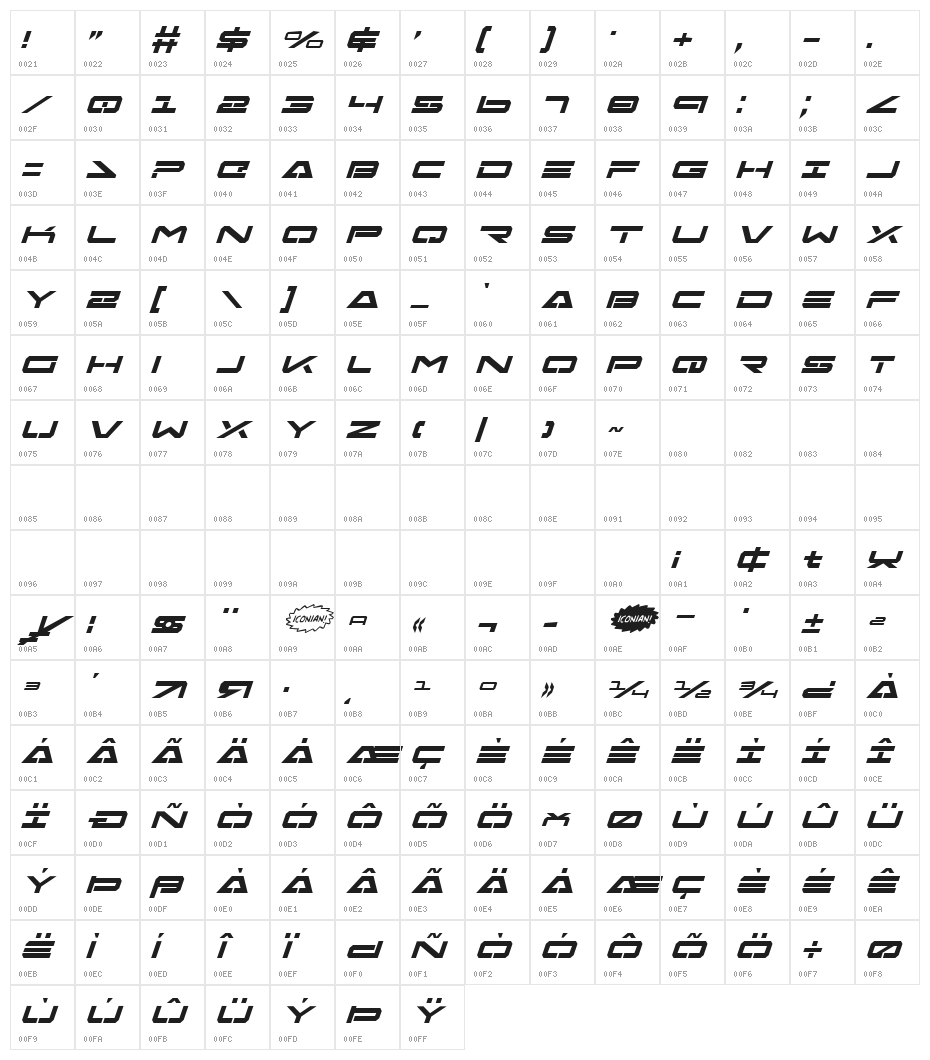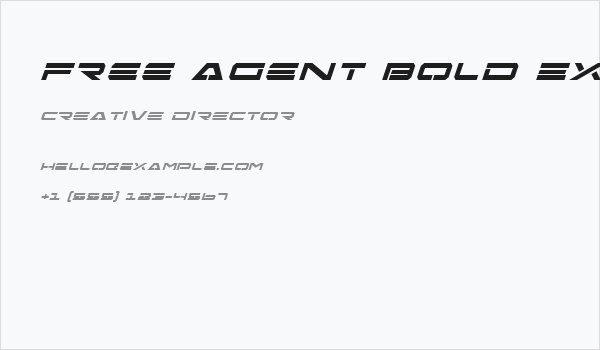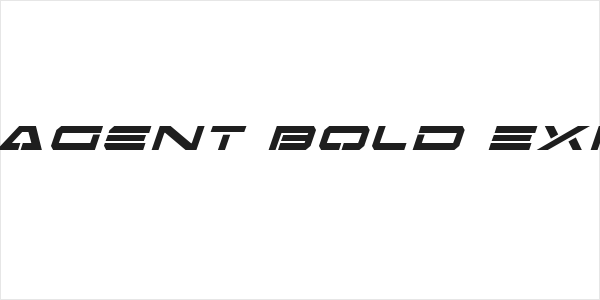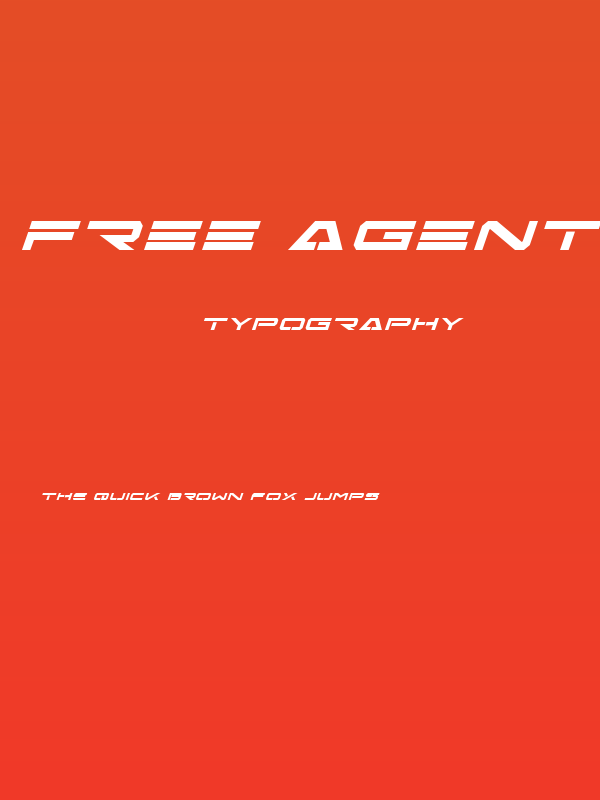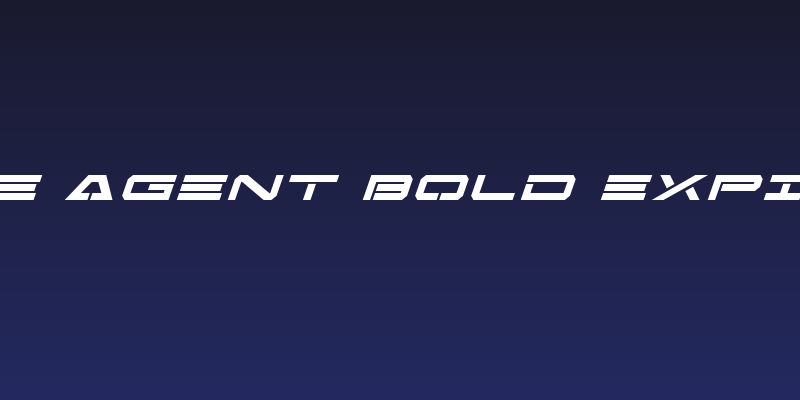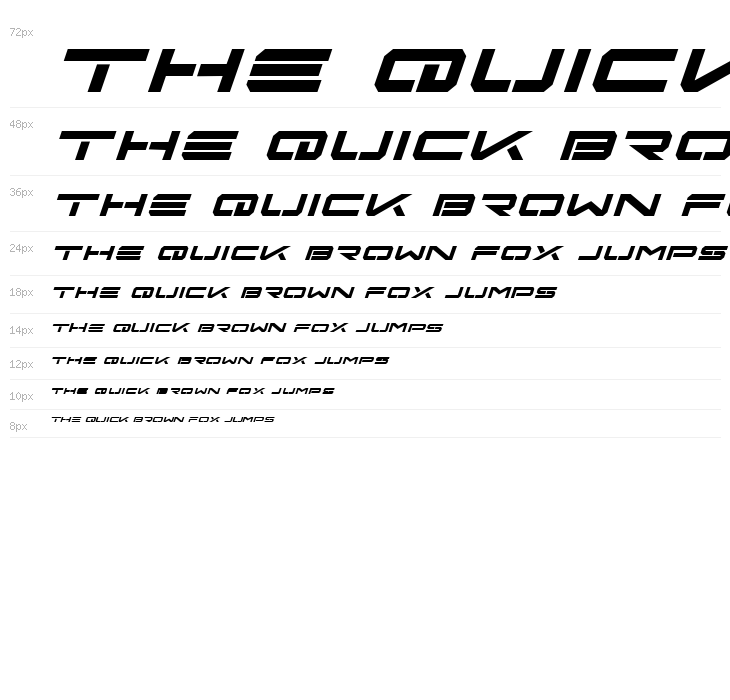
Free Agent Bold ExpItal Font
Free Agent Bold ExpItal Description
This font features a bold and dynamic design with an italicized slant, giving it a sense of motion and energy. The characters are geometric and angular, with sharp edges and a futuristic aesthetic. The uppercase letters are particularly striking, with unique shapes that make them stand out. The numbers and special characters maintain the same bold and angular style, ensuring consistency across all elements. This font is ideal for projects that require a modern and edgy look, such as sports branding, technology-related designs, or dynamic advertising campaigns.
| Proposed Projects | Ideal for sports branding, technology designs, and dynamic advertising. |